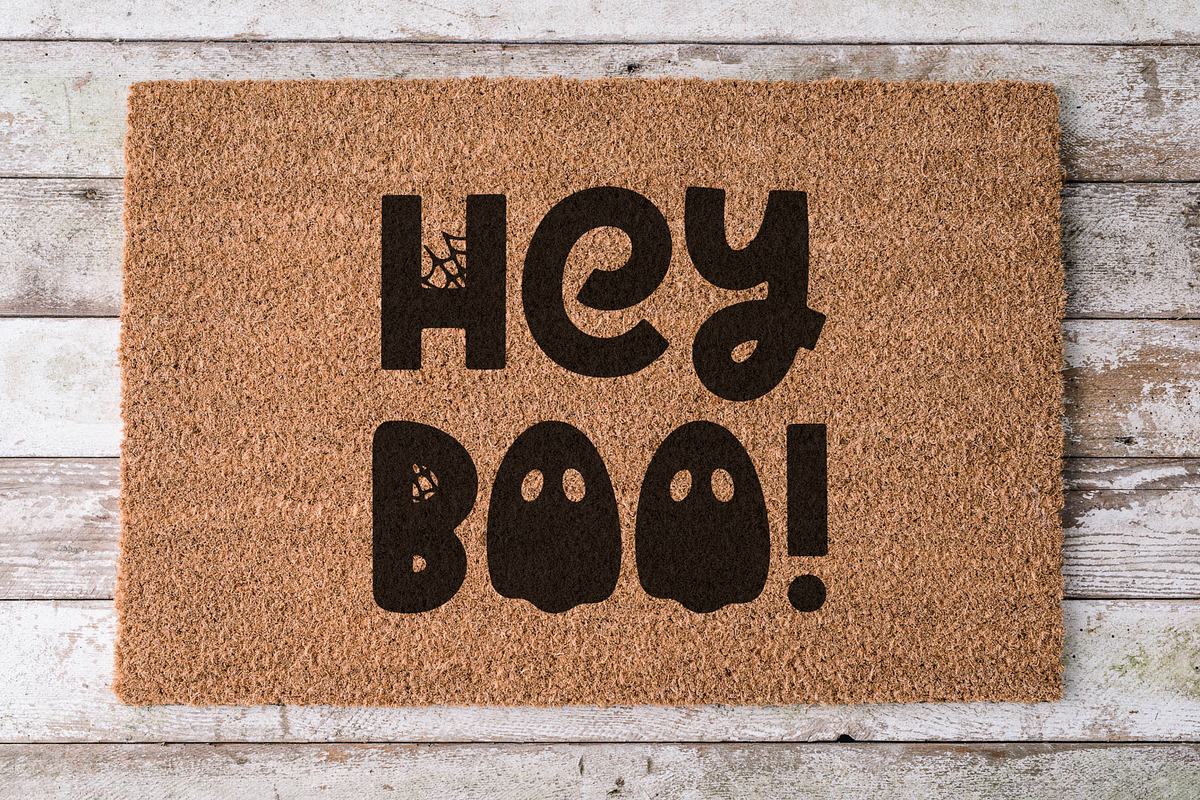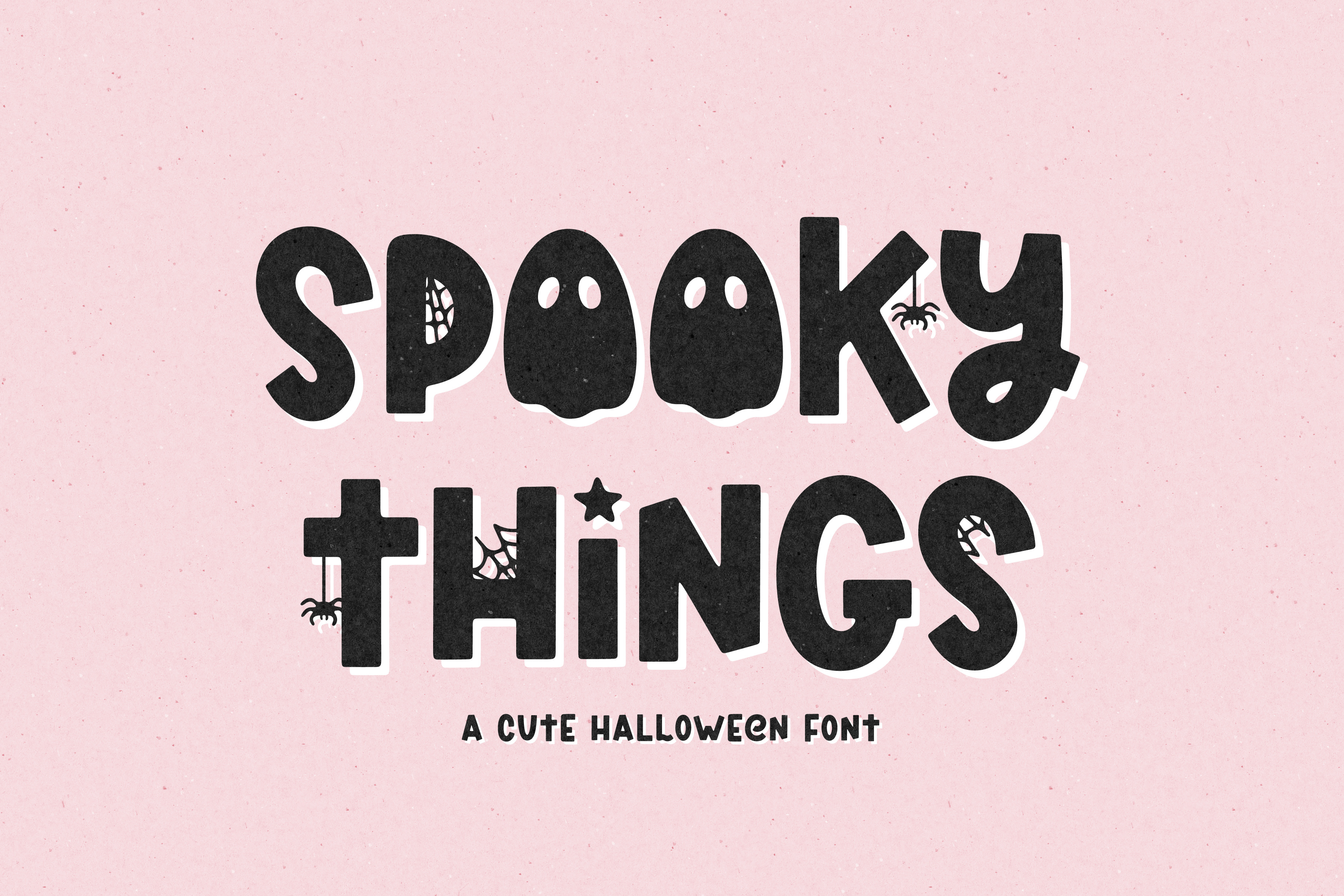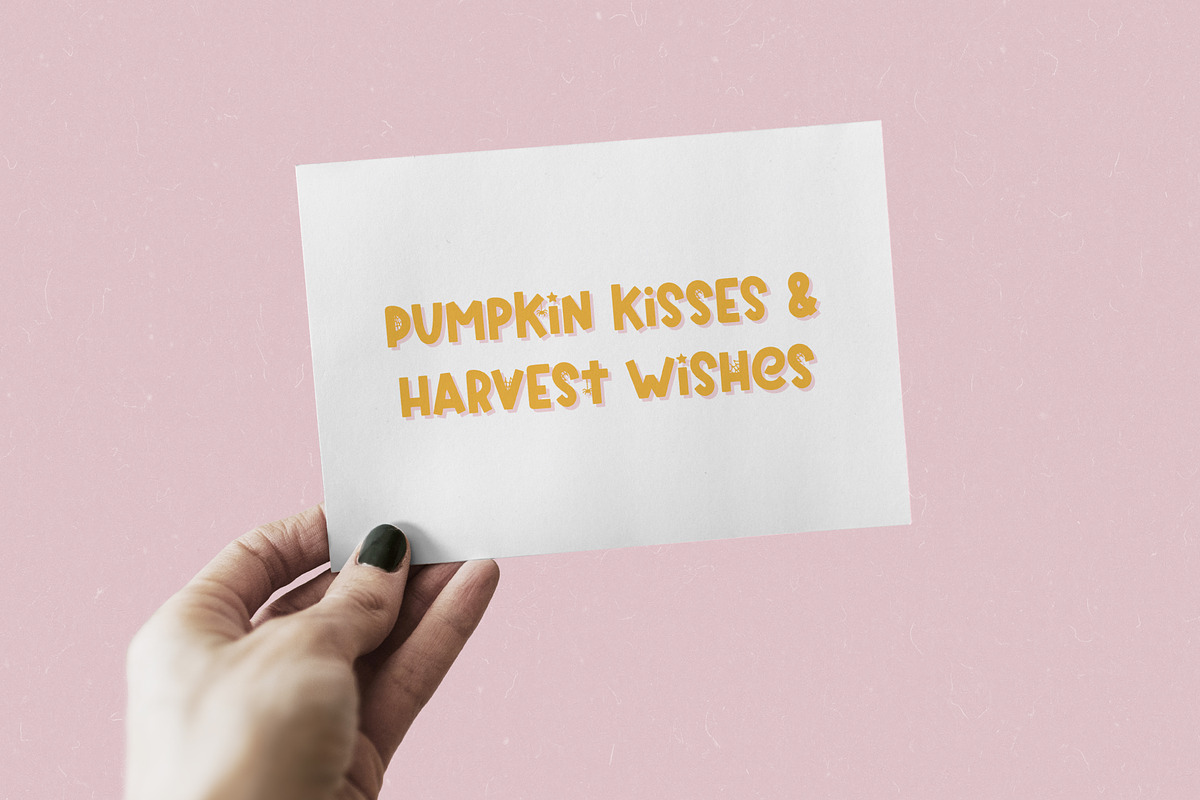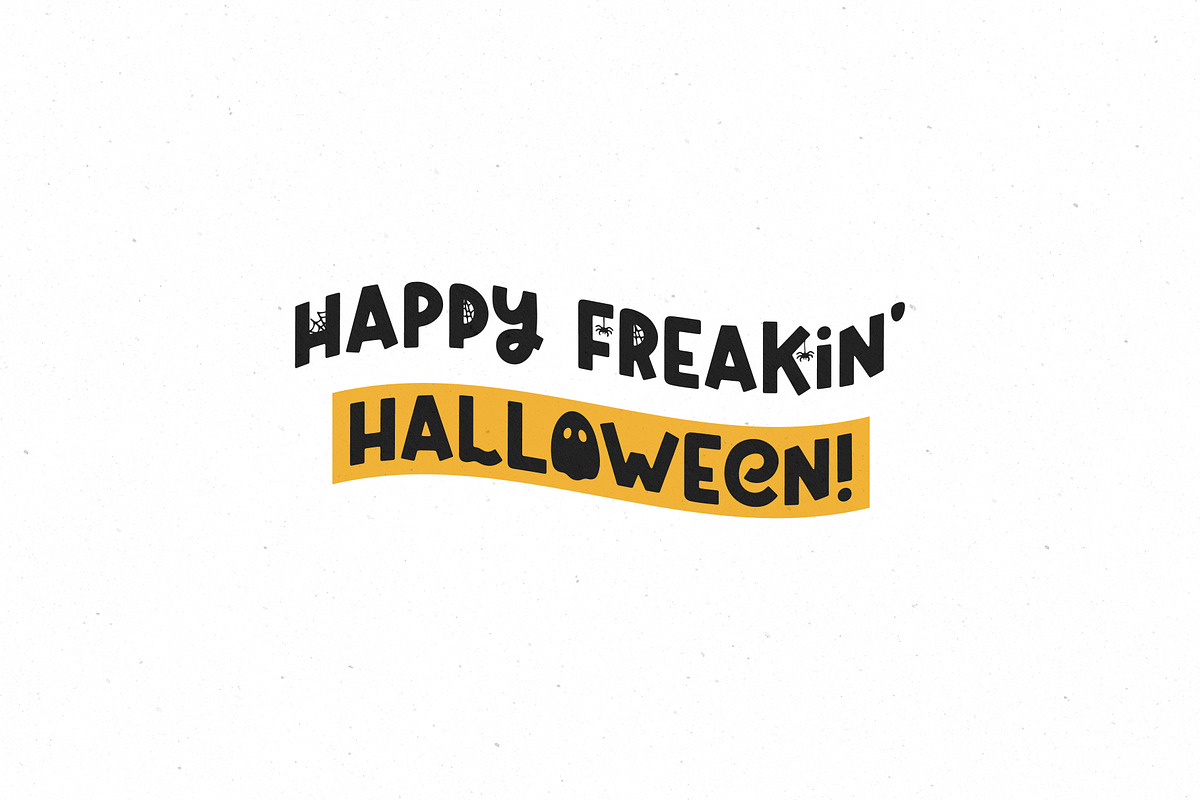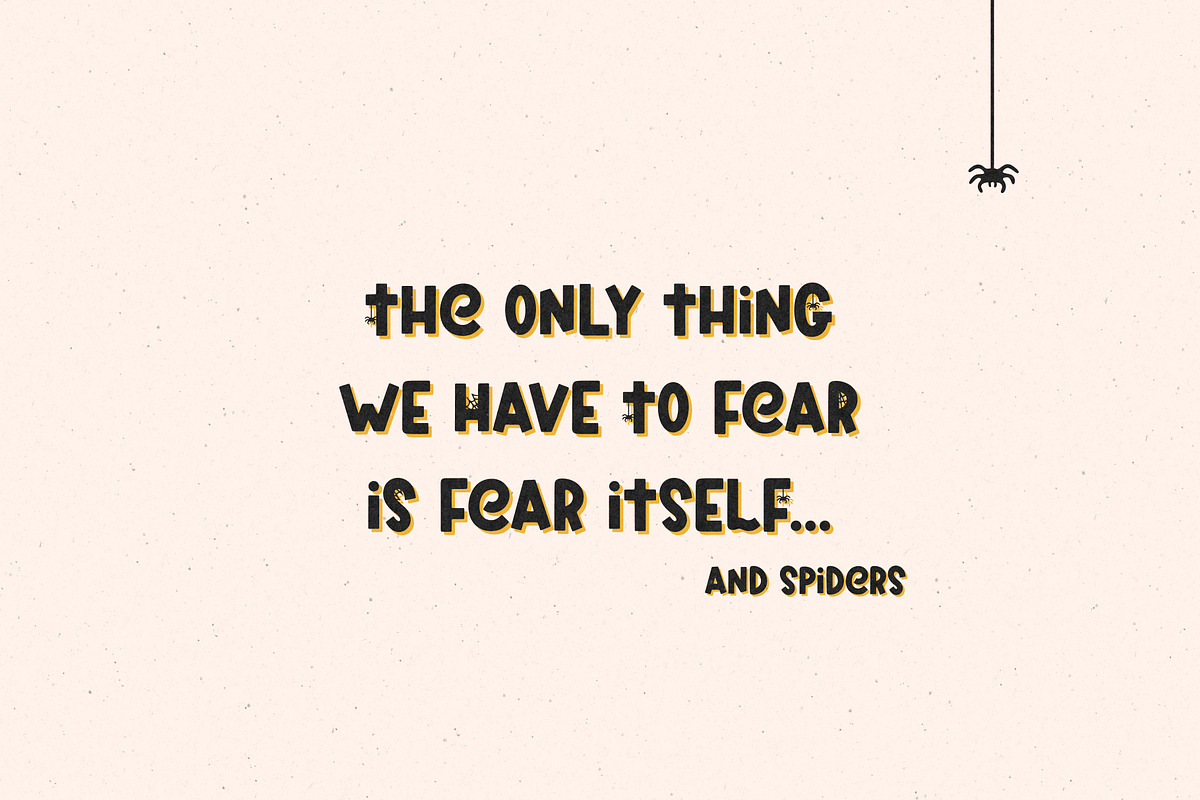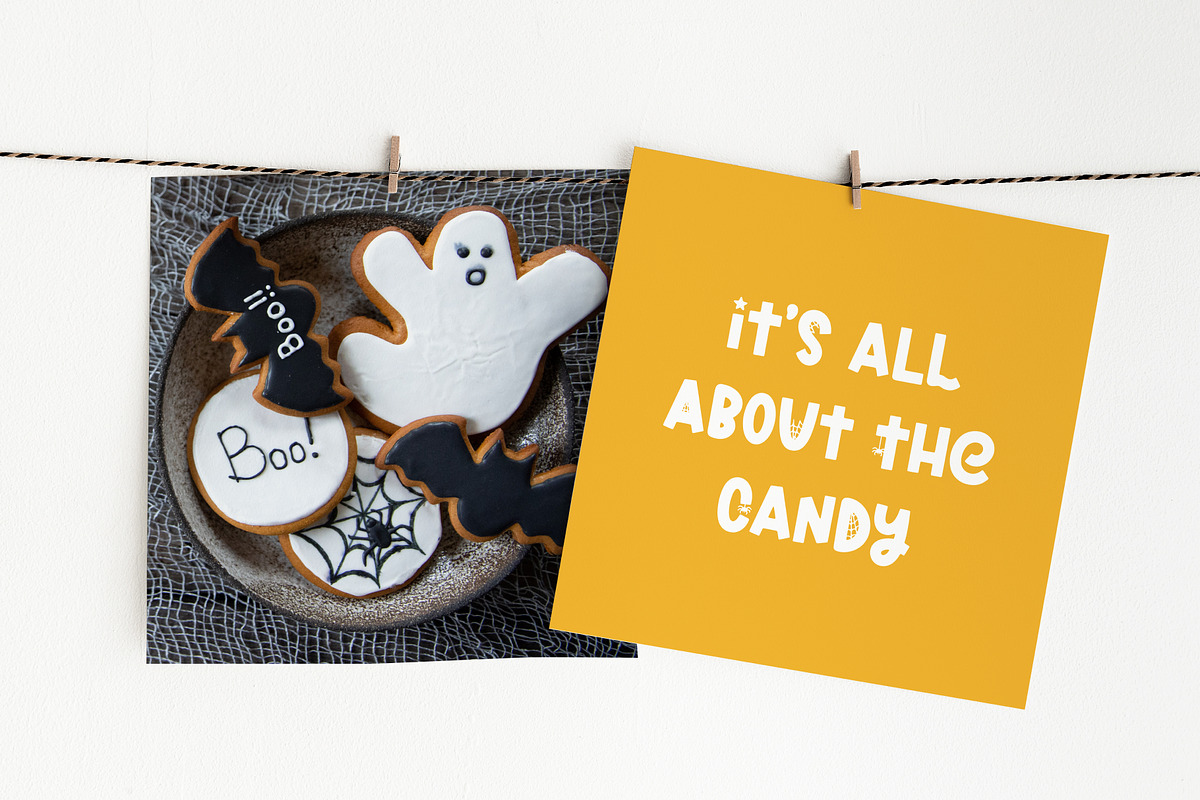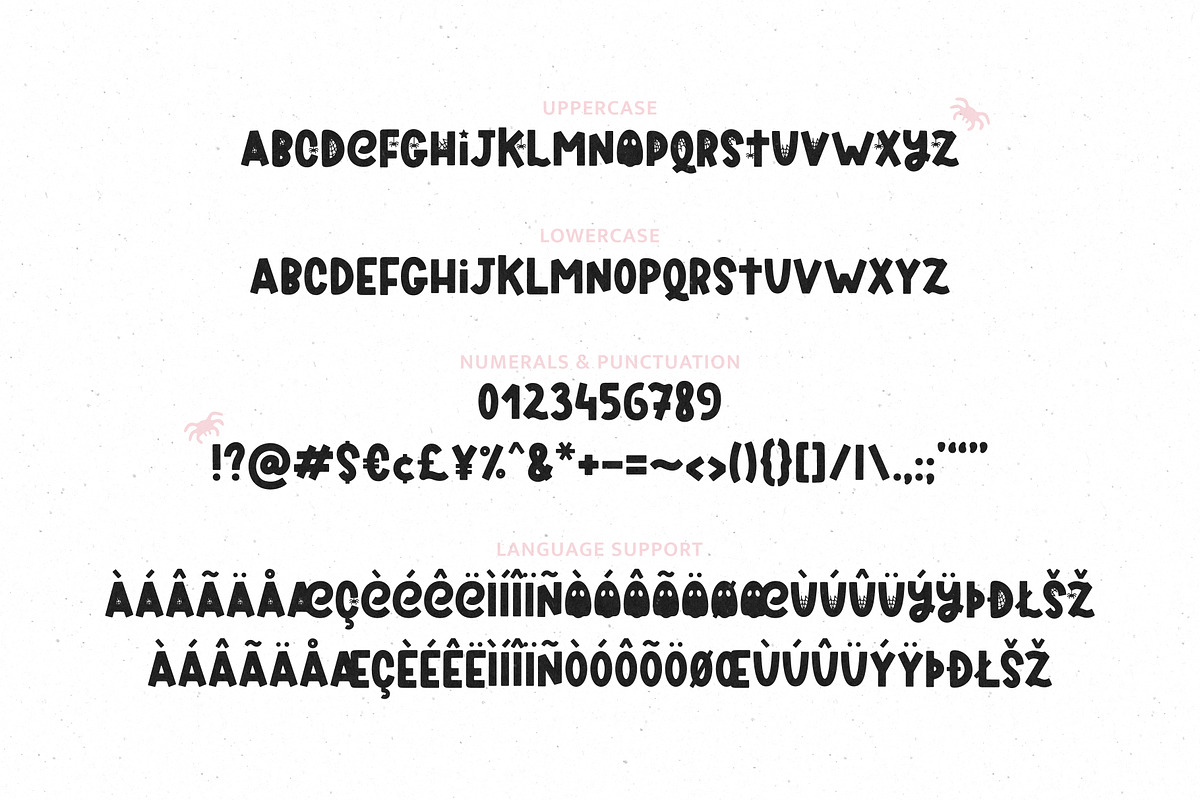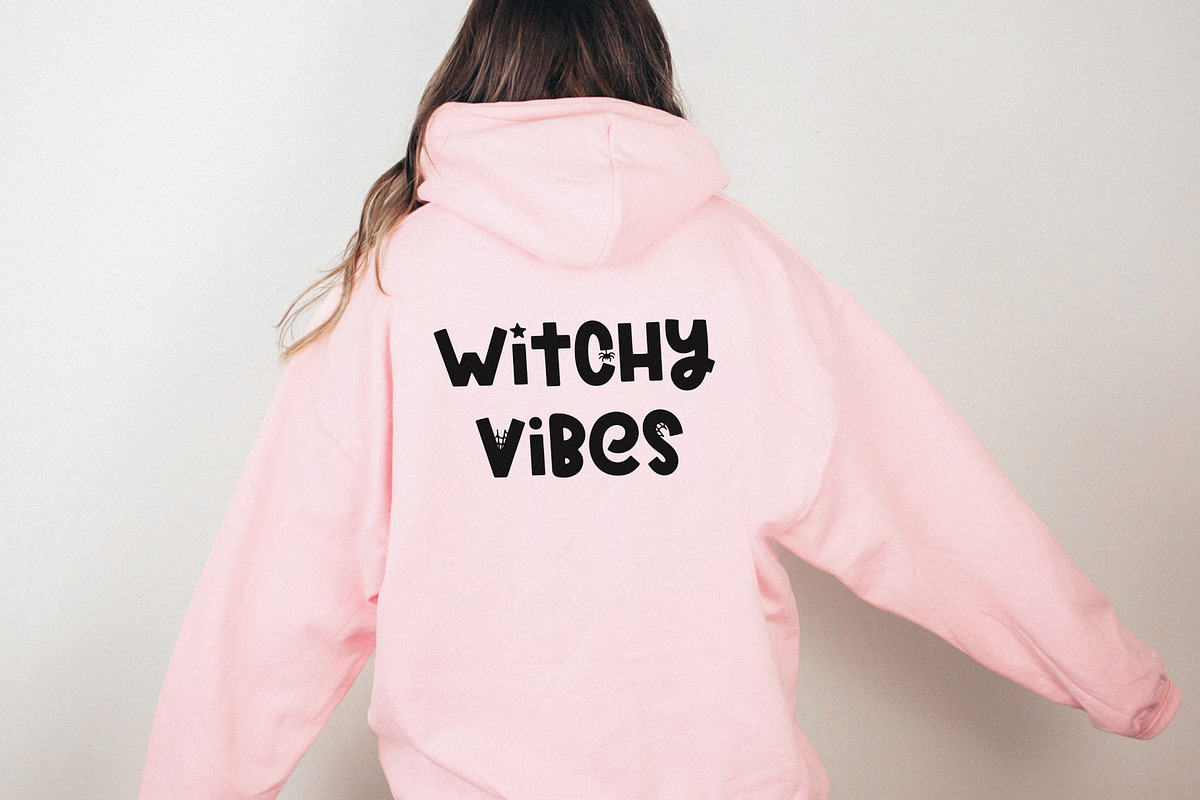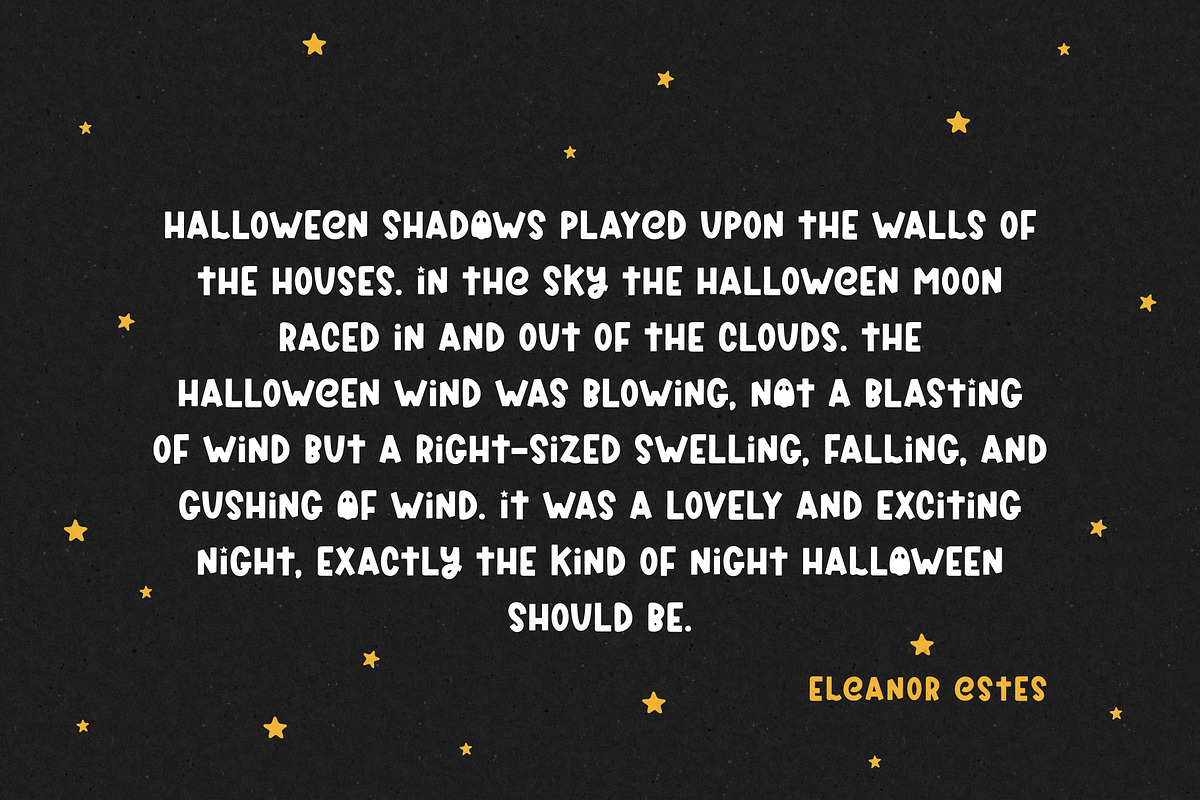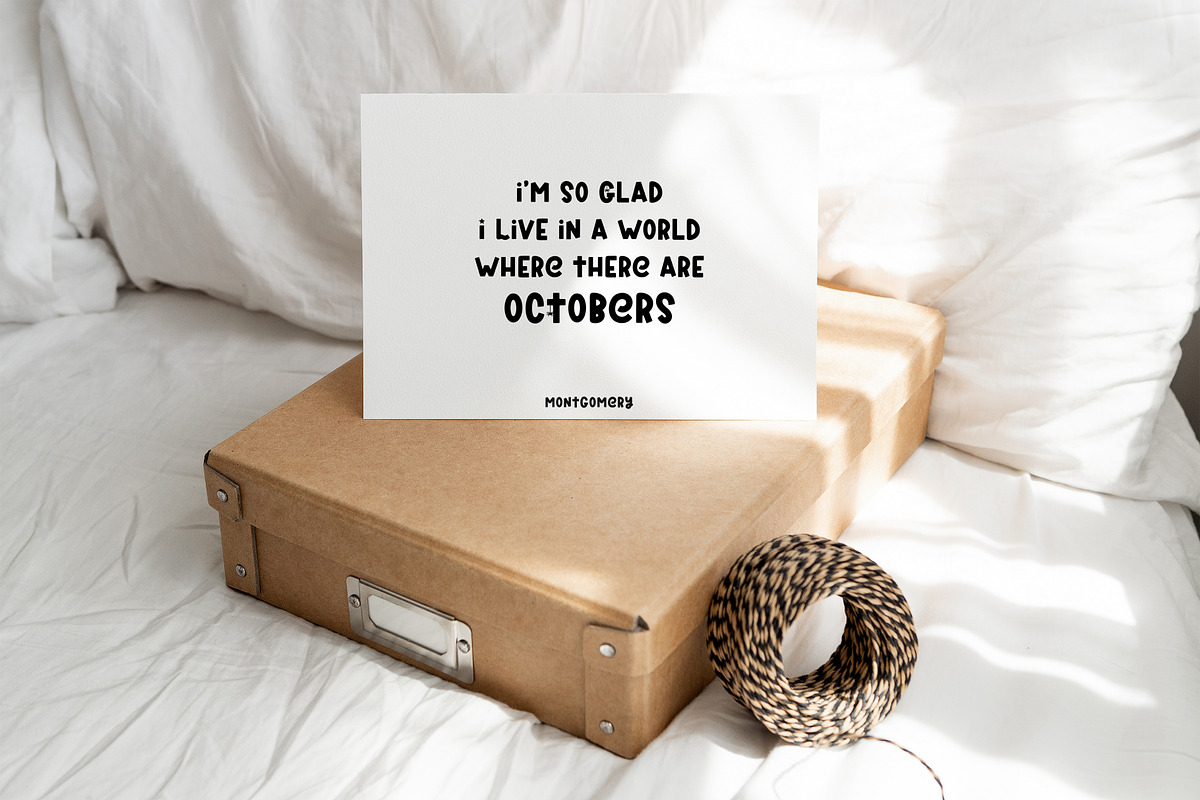
Spooky Things - Cute Halloween Font
Hey Boo! Spooky Things - a cute Halloween font with ghosts, spiders and cobwebs.
Perfect for Halloween designs, logos, branding, packaging, apparel, cards, posters, quotes, social media posts, stickers, and much more.